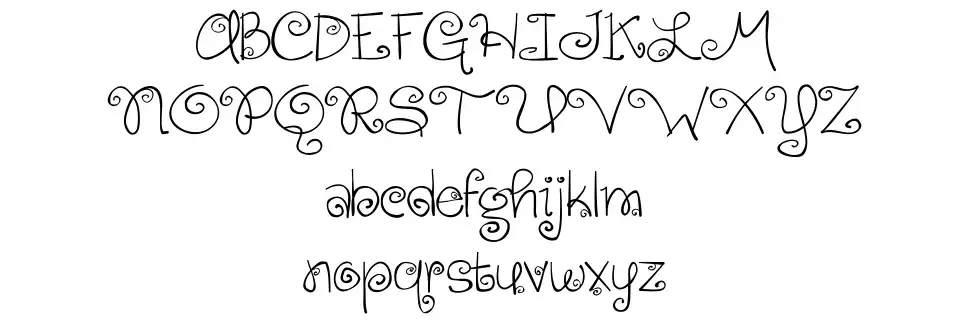
Gingersnaps Font
Gingersnaps Font By Brittney Murphy Fontriver Gingersnaps is a trademark of brittney murphy. copyright (c) 2012 by brittney murphy. all rights reserved. unicodeunicode 2.0 and onwards semantics, unicode bmp only. Gingersnaps is a font. the typeface contains 1 file and supports 58 languages. the font can be used in non commercial use. gingersnaps was developed brittney murphy design. Inspired by the joy of childhood and playful moments, gingersnaps font was developed by john smith to evoke a sense of happiness and nostalgia. the font showcases smooth, friendly lines that engage the audience and invite them into a world of imagination. Free download of gingersnaps font. released in 2012 by brittney murphy design and licensed for personal use only. use our font generator to create a custom image that you can download.
Gingersnaps Font By Brittney Murphy Fontriver Inspired by the joy of childhood and playful moments, gingersnaps font was developed by john smith to evoke a sense of happiness and nostalgia. the font showcases smooth, friendly lines that engage the audience and invite them into a world of imagination. Free download of gingersnaps font. released in 2012 by brittney murphy design and licensed for personal use only. use our font generator to create a custom image that you can download. Gingersnaps font belongs to regular subfamily. font created by brittney murphy. the font version is version 1.000 and its license is: copyright (c) 2012 by brittney murphy. all rights reserved. Download gingersnaps font with freeware, non commercial by brittney murphy design. Download free ginger snaps font, view its character map and generate text based images or logos with ginger snaps font online. Download for free gingersnaps regular. check out examples of the gingersnaps regular font at azfonts.